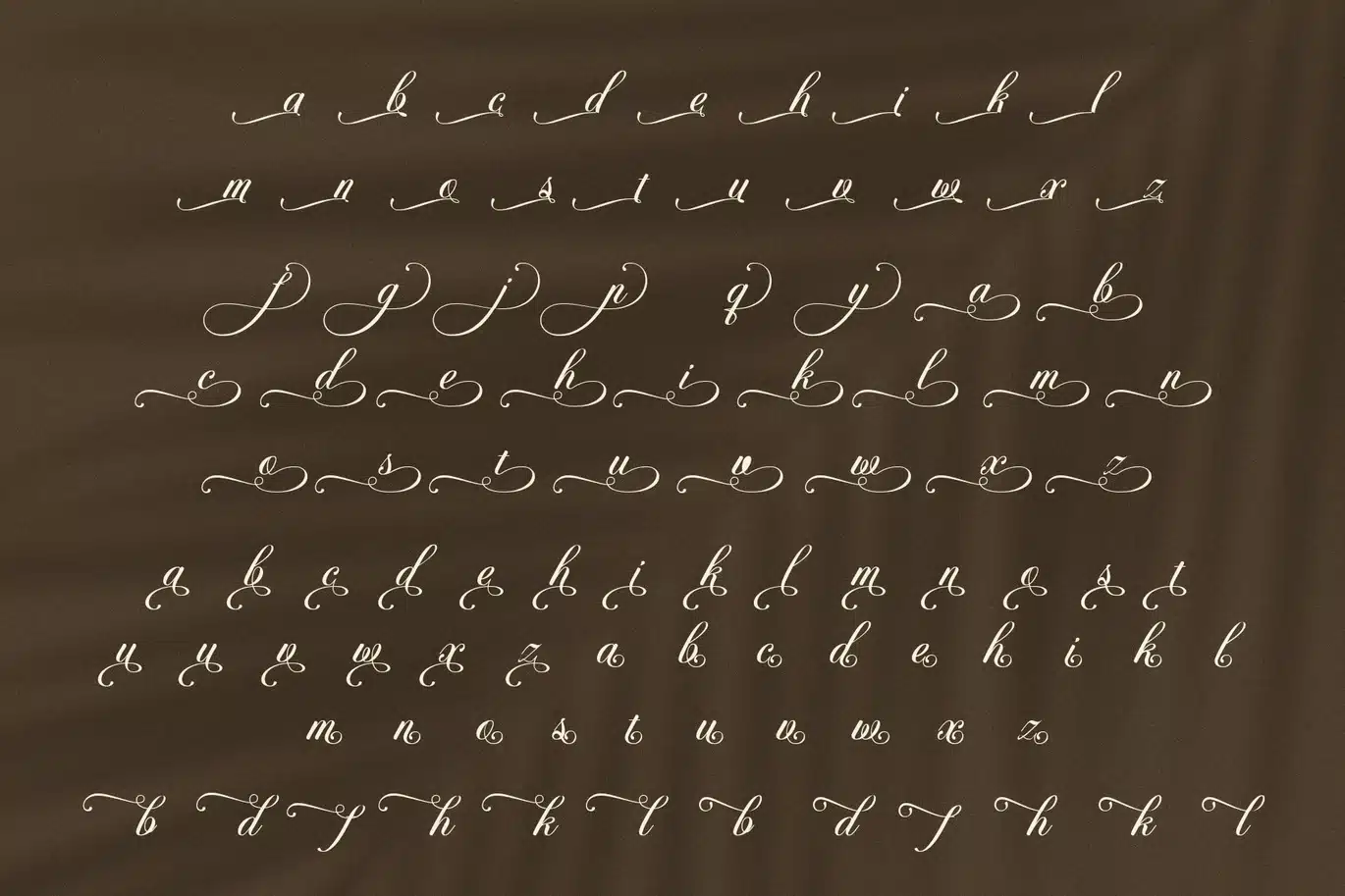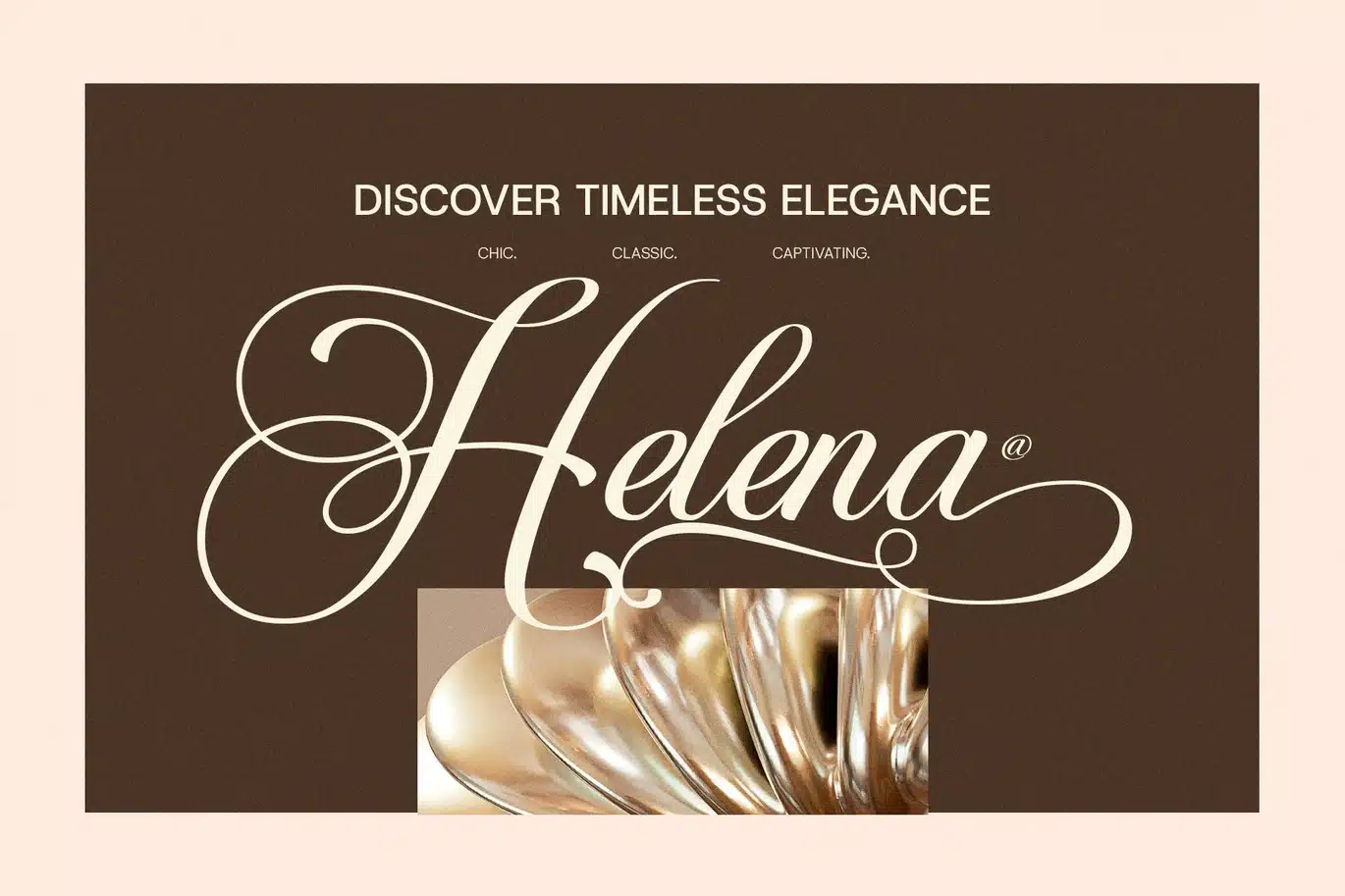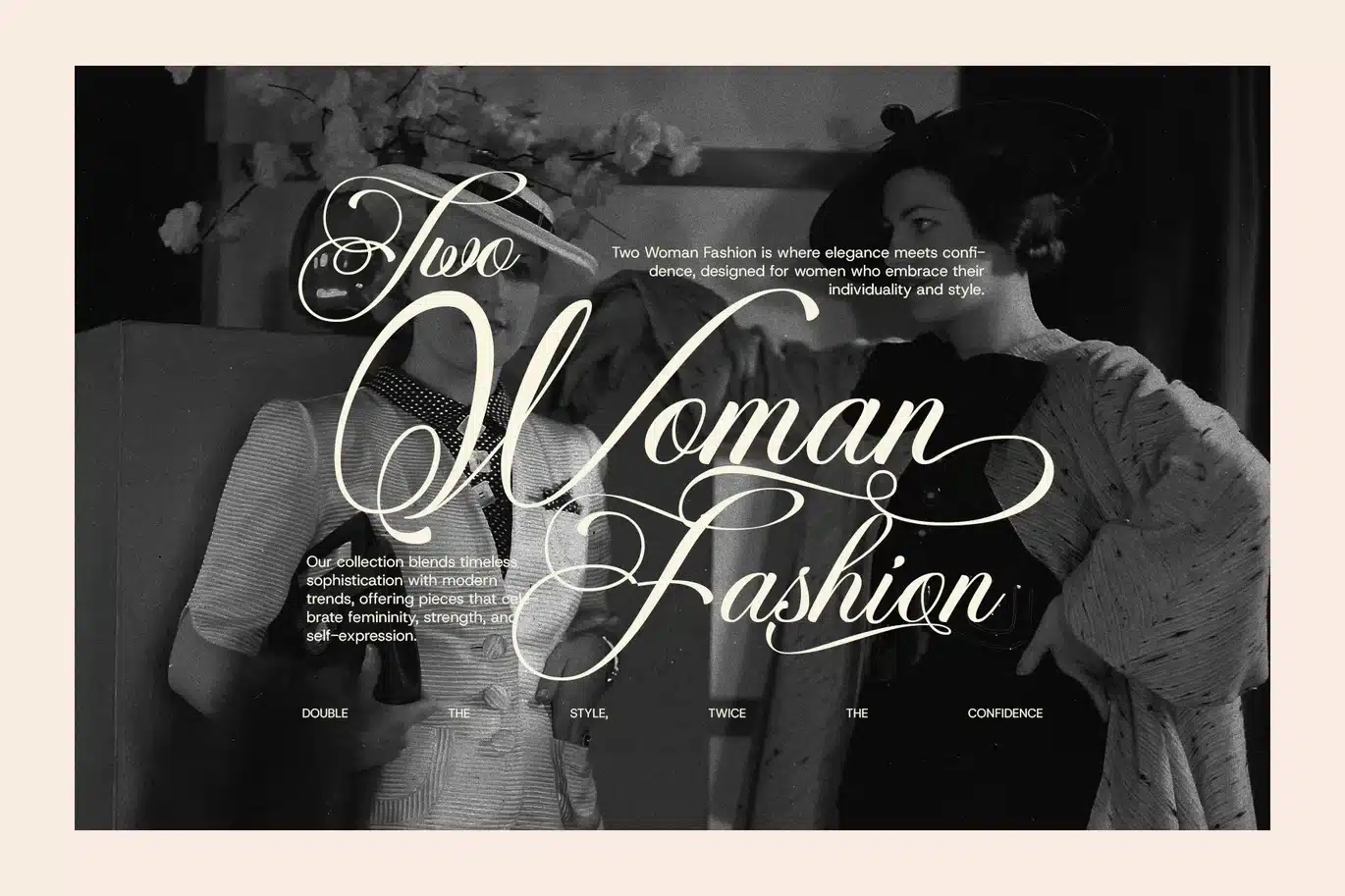
Bathsaida – Elegant Calligraphy Script Font
Bathsaida is a beautiful calligraphy script font that adds a soft, personal touch to your designs. Its smooth, flowing lines look like natural handwriting, making it great for wedding invitations, logos, greeting cards, and branding. This font looks elegant but stays easy to read.
Because of its gentle curves and balanced strokes, Bathsaida brings warmth and charm to any project. It works well for designs that need a stylish, friendly feel. Also, the font includes many alternate letters and ligatures, letting you create unique and creative text styles.
Besides that, Bathsaida supports many languages and includes all the needed punctuation marks. This means it works well for global projects. The font looks sharp and clear on both print and digital screens, giving you great results every time.
Beautiful and flowing calligraphy style
Perfect for weddings, branding, and invites
Many alternate letters and ligatures included
Supports many languages and special characters
Looks elegant and stays easy to read
Adds warmth and style to your designs
Works well in print and digital use
Overall, Bathsaida is a flexible and stylish font for anyone who wants to add a warm and elegant look. It helps you make designs that are both pretty and clear. So, it is a great choice for designers who want a script font that is both useful and beautiful.